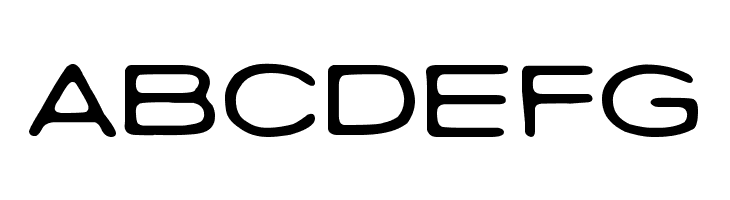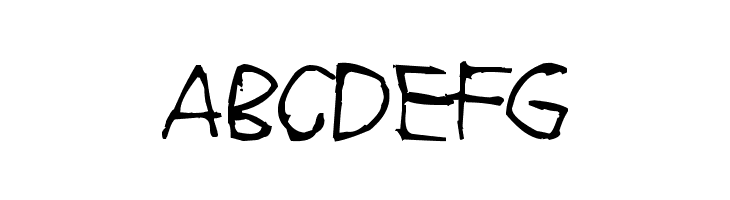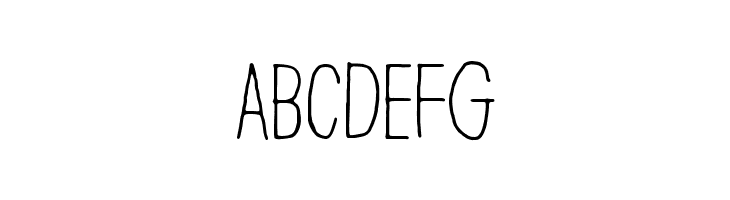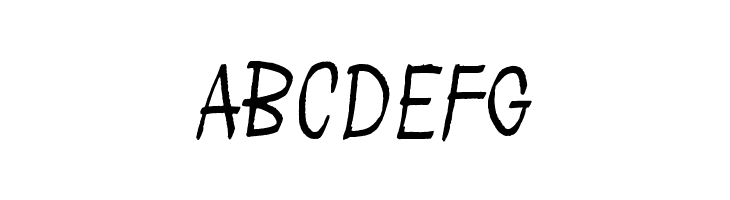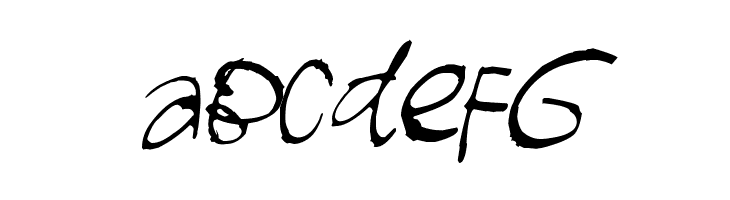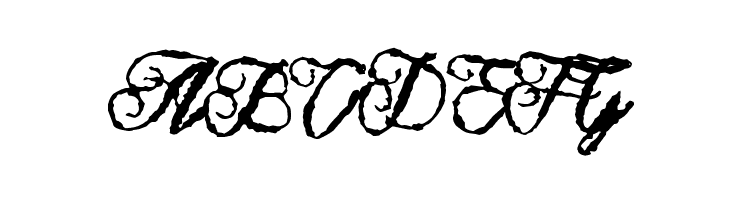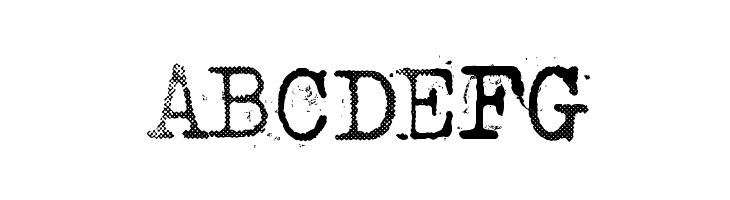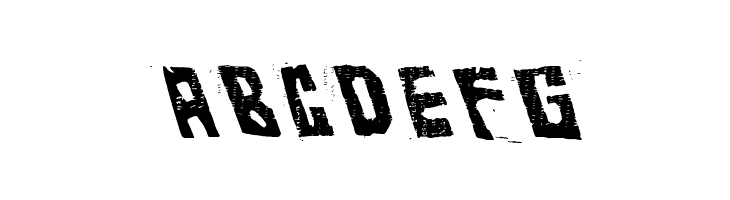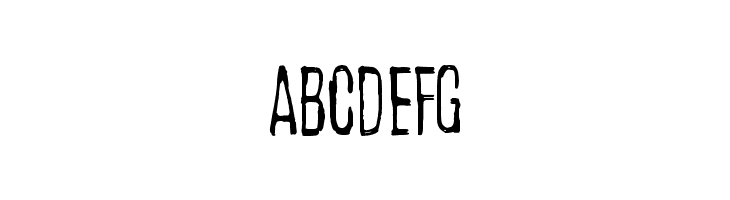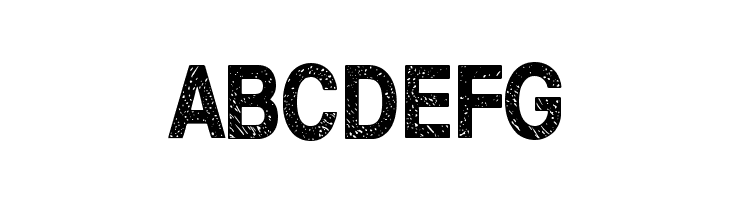
A playful, rounded font with smooth curves and a friendly appearance.
A bold, hand-drawn font with an expressive, brush-painted style.
A thin, hand-drawn font with a playful and informal style.
A casual handwritten font with dynamic, slanted characters and uneven strokes.
A dynamic, hand-drawn style font with bold, irregular strokes.
A bold, expressive script font with a hand-drawn, artistic style.
A distressed, grunge-style font with a textured, vintage appearance.
A bold, distressed font with a vintage, rugged appearance.
A hand-drawn, rustic font with a distressed and organic appearance.
A hand-drawn, organic font with tall, narrow characters and a slightly distressed look.
A whimsical, hand-drawn font with uneven, wobbly strokes.
A hand-drawn, playful font with tall, narrow characters and varying stroke widths.
A playful, hand-drawn font with an artistic and dynamic style.
A hand-drawn, edgy font with irregular, jagged strokes and a dynamic slant.
A bold, hand-drawn font with an expressive and dynamic style.
A bold, hand-drawn font with a rough, sketch-like appearance.
A bold, hand-drawn font with an expressive and artistic style.
A tall, distressed font with jagged edges, perfect for horror themes.
A rugged, textured font with a vintage, typewriter-like appearance.
A classic serif font with rounded edges and moderate contrast, offering elegance and readability.
A playful, bold serif font with a hand-drawn, whimsical style.
A bold, dynamic font with a hand-crafted, artistic style.
A playful, hand-drawn font with tall, narrow letters and a whimsical style.
A hand-drawn, artistic font with uneven strokes and a dynamic, chaotic style.
A playful, hand-drawn font with bold outlines and a whimsical style.
A rustic, handcrafted font with a woodcut print style.
A playful, hand-drawn font with a textured, informal style.
A dynamic, handwritten font with an expressive and casual style.
A bold, distressed font with a vintage, industrial style.
A bold, distressed font with a vintage, grunge aesthetic.
A playful, hand-drawn font with uneven strokes and a casual style.
A bold, playful font with a shadowed outline and whimsical flair.